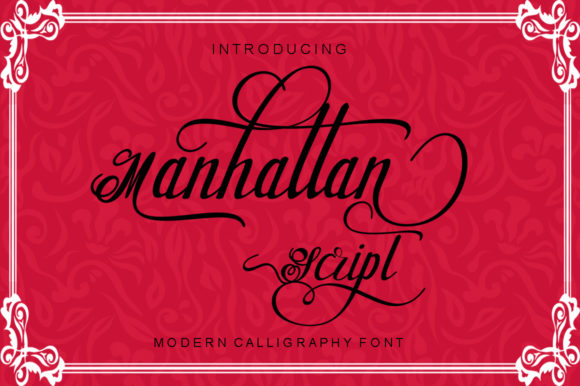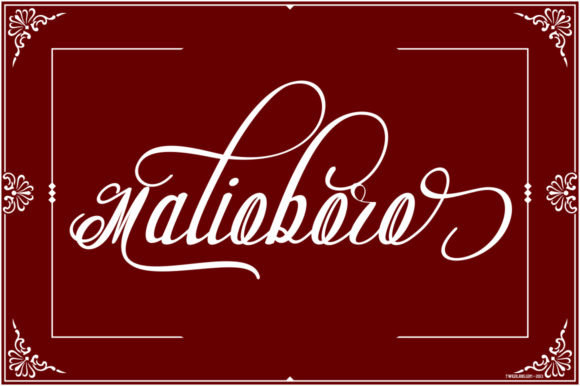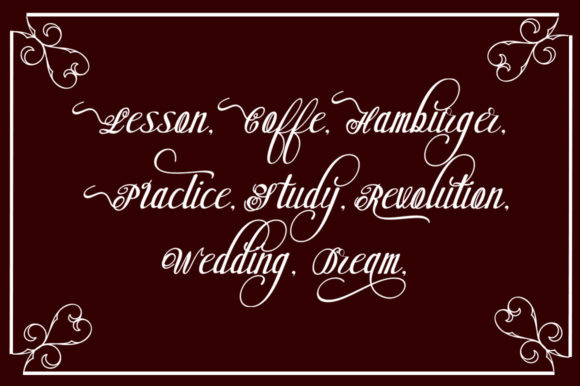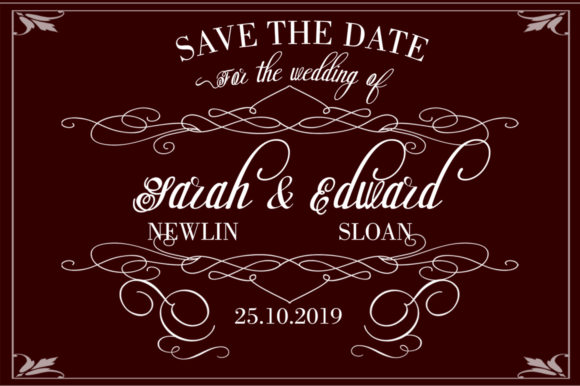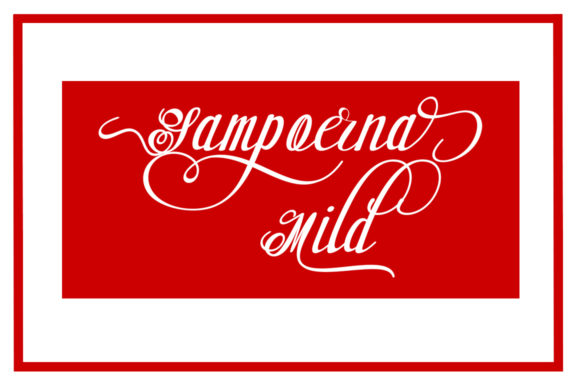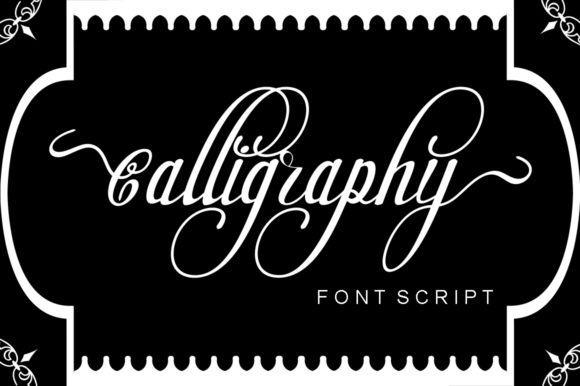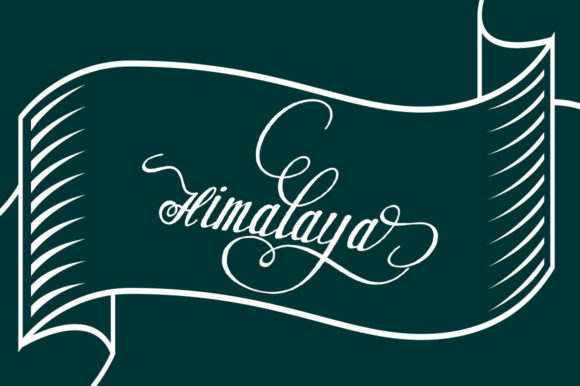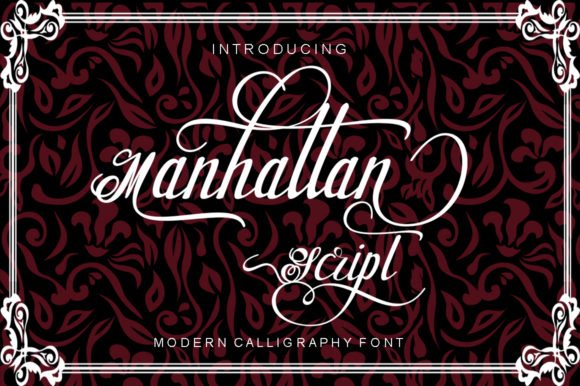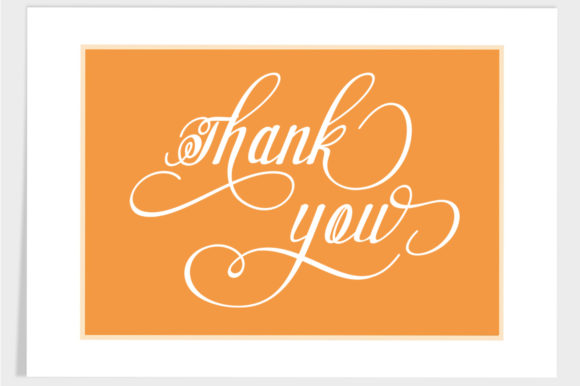
HomeScript FontsManhattan Script Font Script Fonts Manhattan Script Font FacebookXPinterestWhatsApp Manhattan Script Font Poster 2 Manhattan Script Font Poster 3 Manhattan Script Font Poster 4 Manhattan Script Font Poster 5 Manhattan Script Font Poster 6 Manhattan Script Font Poster 7 Manhattan Script Font Poster 8 Manhattan Script Font Poster 9 About Manhattan Script Font Manhattan is a beautiful script font with a unique and organic twist. Fall in love with its bold swashes! DOWNLOAD ON CREATIVE FABRICAThis font is sold and delivered by Creative Fabrica. Font Canyon may earn a commission if you buy through this link. People also explored Christmas Umbrella Font Quicksliver Font Gasing Font Sour Sugar Font Christmas Reindeer Font Kasiqueen Font Veronica Font Feel Zivton Font Calista Font 310 0 TagsManhattan Script Font Previous articleLottekas FontNext articlePenhead Font LEAVE A REPLY Cancel reply Comment: Please enter your comment! Name:* Please enter your name here Email:* You have entered an incorrect email address! Please enter your email address here Website: Save my name, email, and website in this browser for the next time I comment. Personal Use Free Kaysan Personal Use Free Read more about this font Setta Personal Use Free Read more about this font Oito Personal Use Free Read more about this font Where the Cookies Personal Use Free Read more about this font BLOG Best Fonts for YouTube Videos: Make Your Thumbnails Stand Out Best Fonts for YouTube Videos: Make Your Thumbnails Stand Out Choosing the right font can make a massive difference in how your YouTube videos perform.... How to Cut Any Font on Cricut: Convert a Font to SVG (Free) Best Fonts for T-Shirt Design – Top 2025 Picks The 10 Best Handwriting Fonts to Add Personality to Your Designs